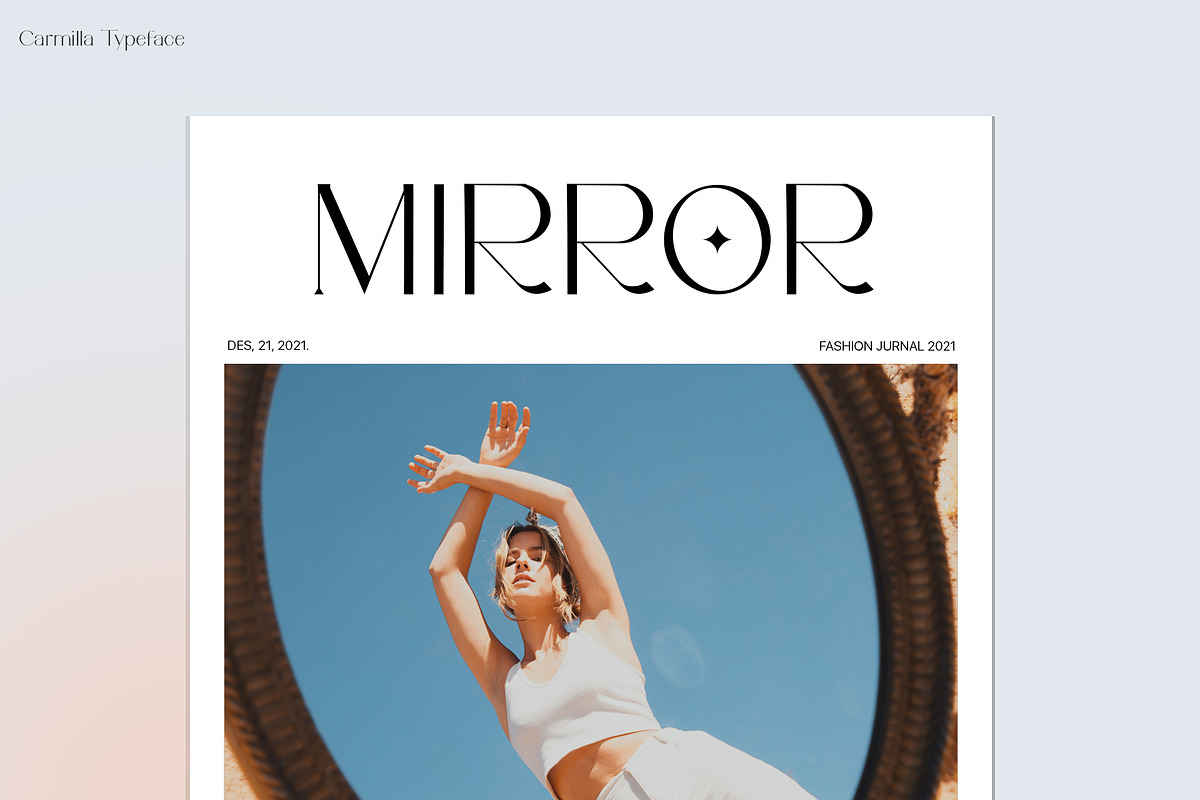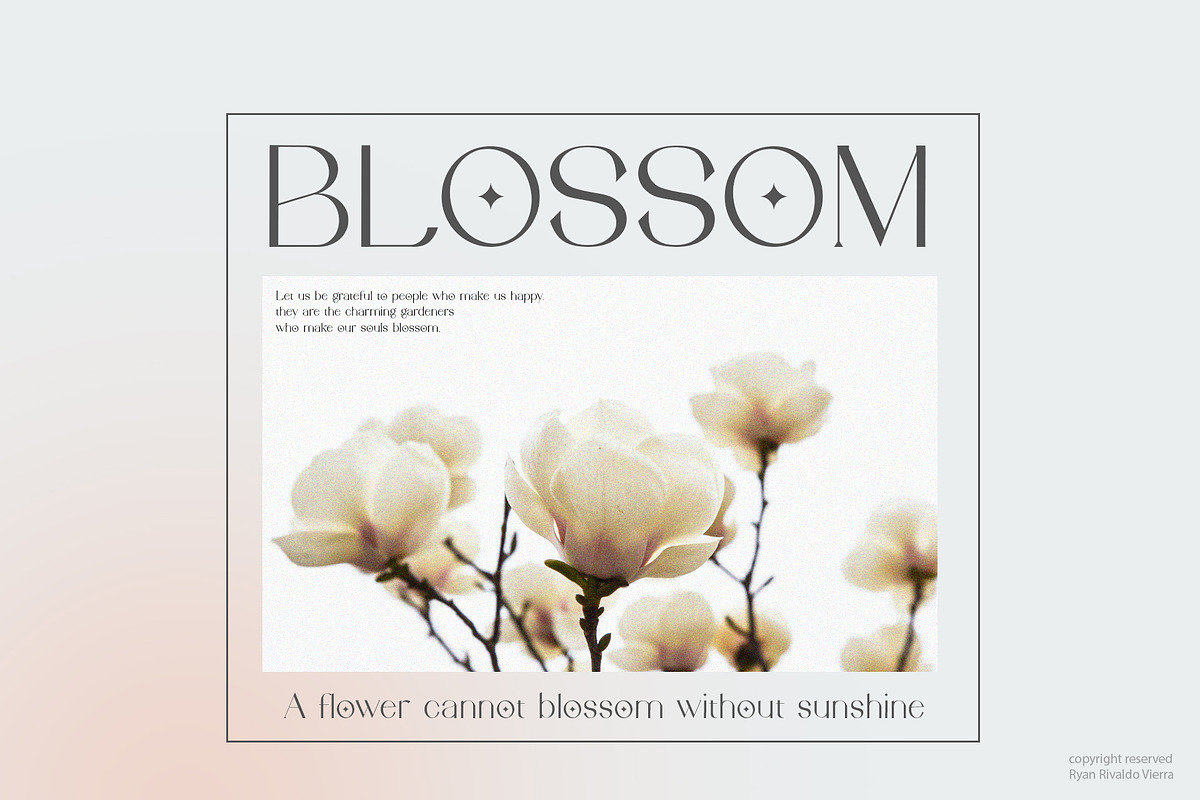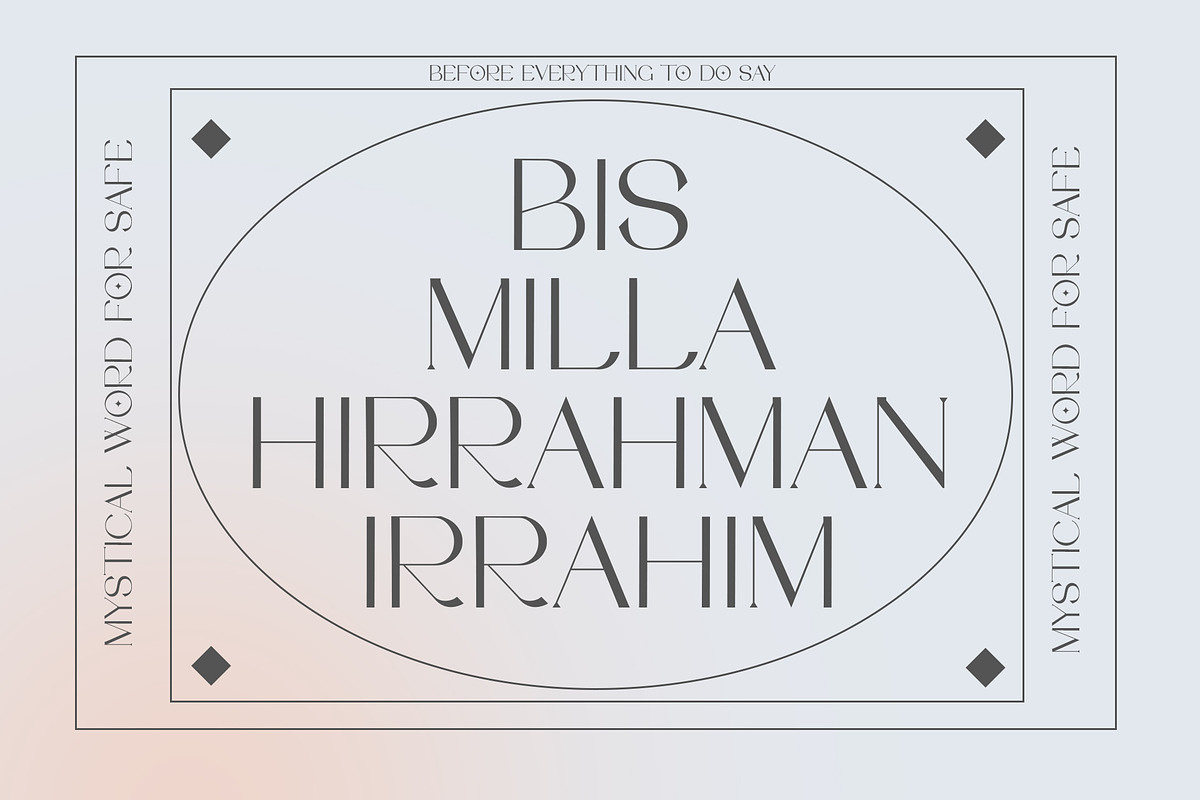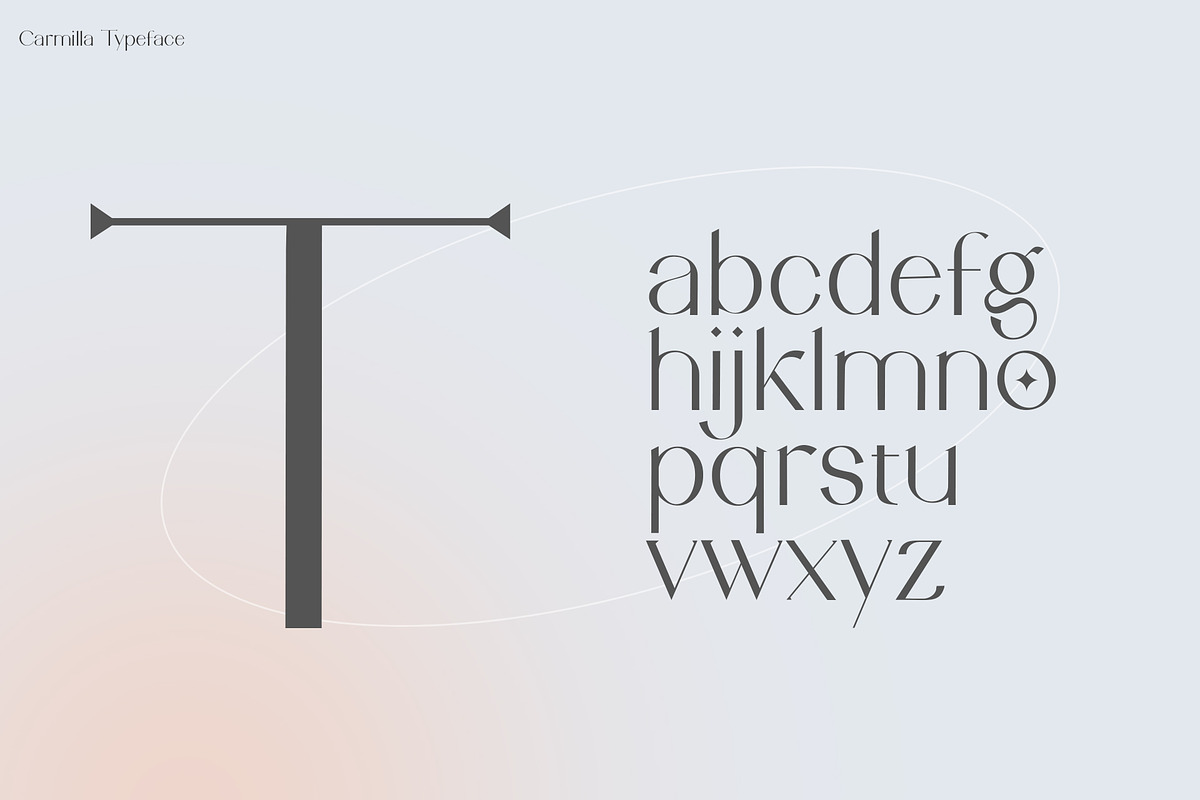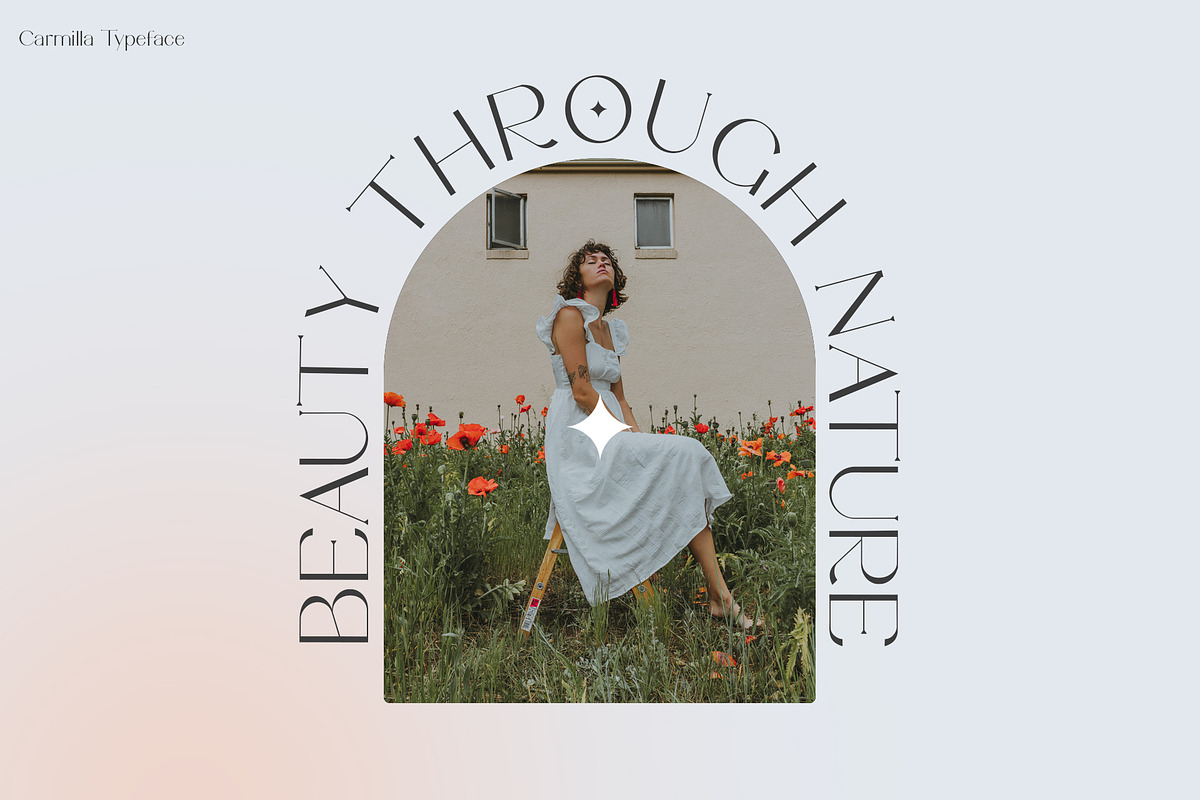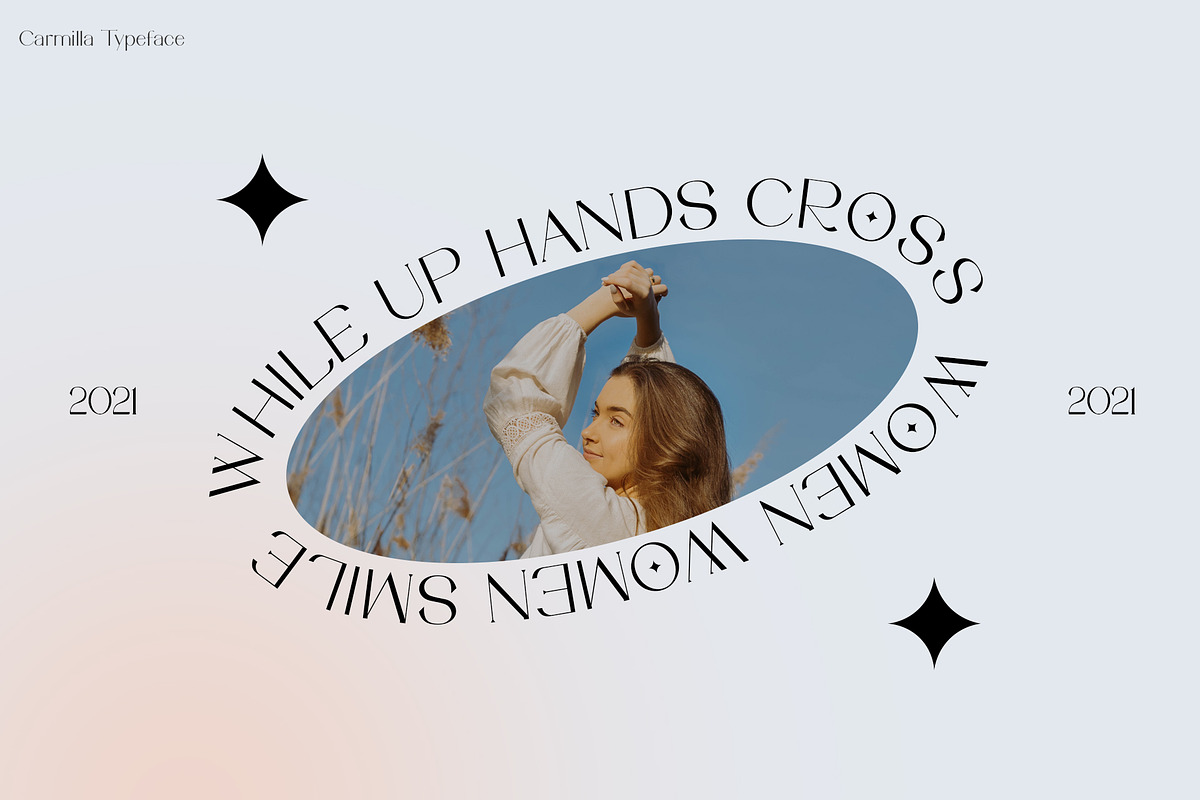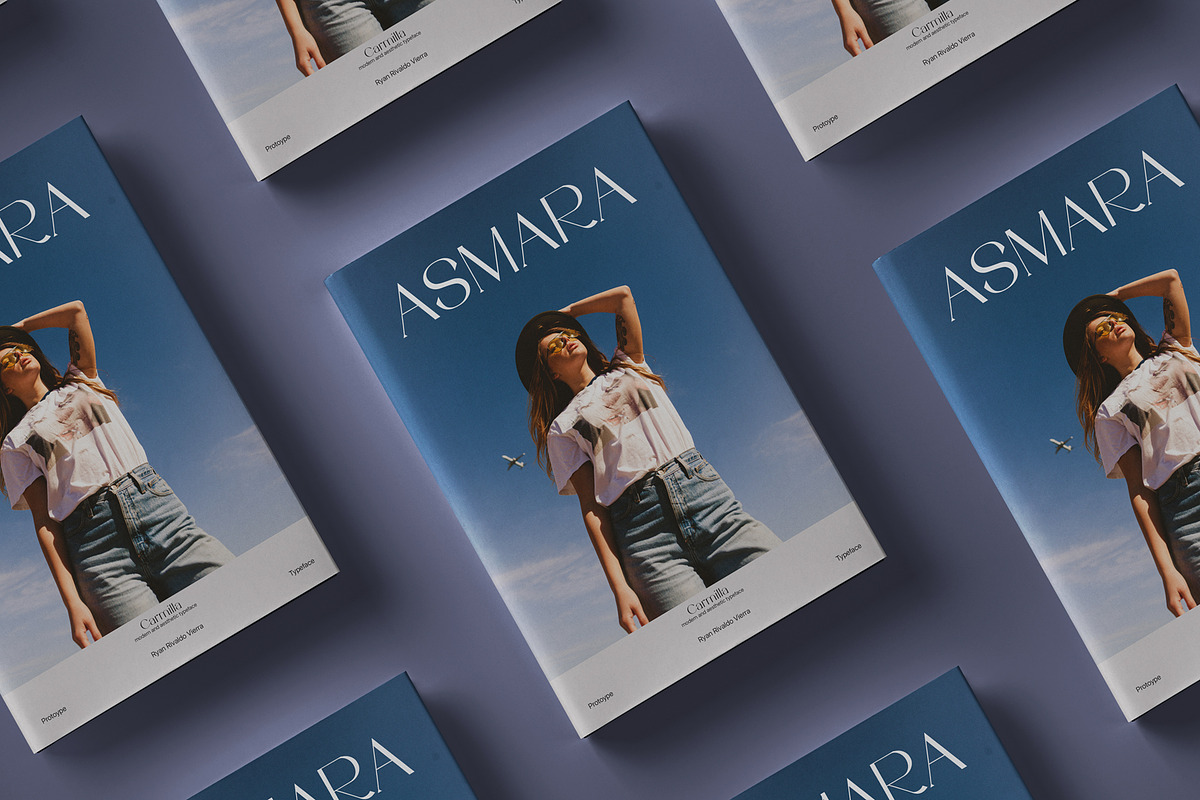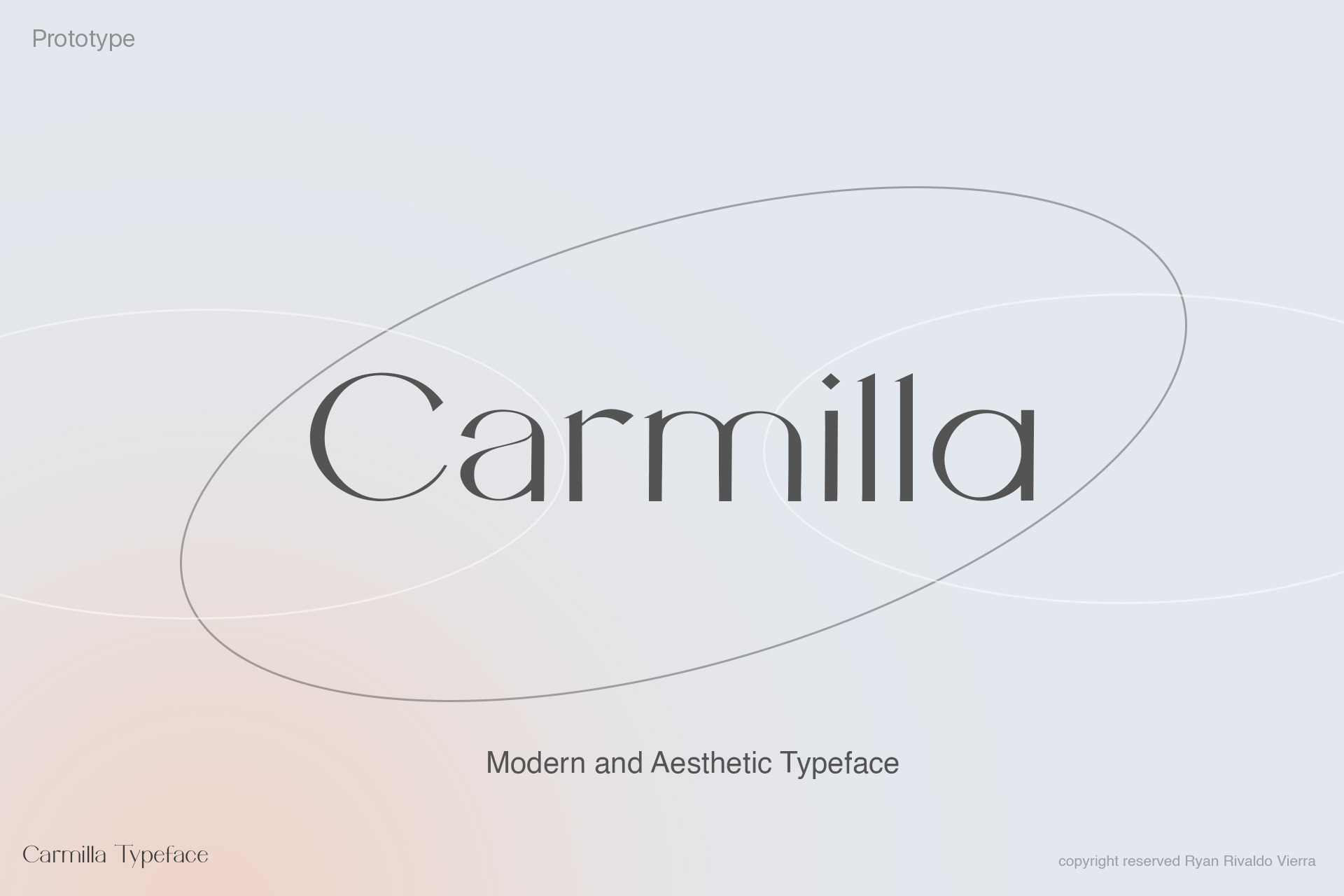
Carmilla | Aesthetic Display Font
Display is the latest typeface by Ryan Rivaldo Vierra. This font appears simply classy and stylish and will add elegance to your design. Hence, it is perfect for editorial projects, Logo design, Clothing Branding, product packaging, or other display purposes.